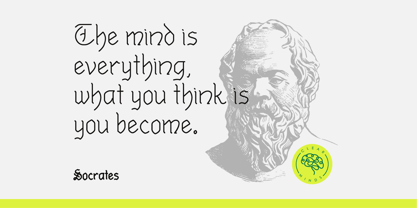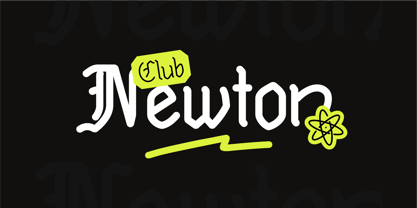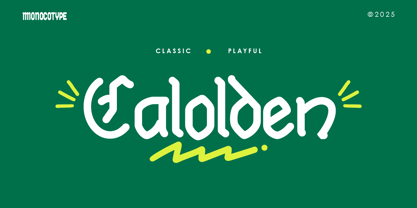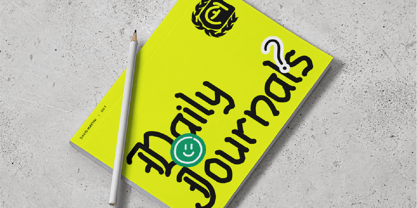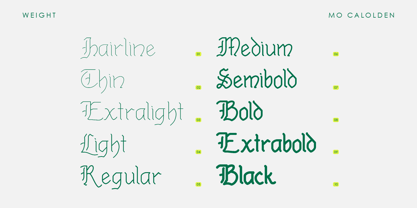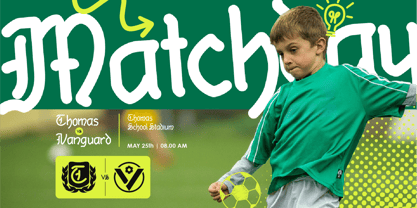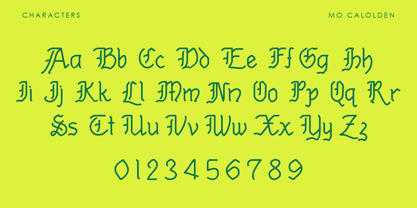
MO Calolden
von Monoco Type
Die Schriftfamilie MO Calolden wurde von Abdurrahman Hanif entworfen und von Monoco Type veröffentlicht. MO Calolden enthält 10 Stile und Familienpaketoptionen.
MO Calolden is a playful blackletter font designed for modern creatives who want a bold, unique voice in their work. Featuring 10 weights from Hairline to Black, this versatile typeface combines classic gothic shapes with friendly, contemporary curves perfect for branding, posters, school projects, journals, and editorial design.
Designer: Abdurrahman Hanif
Herausgeber: Monoco Type
Foundry: Monoco Type